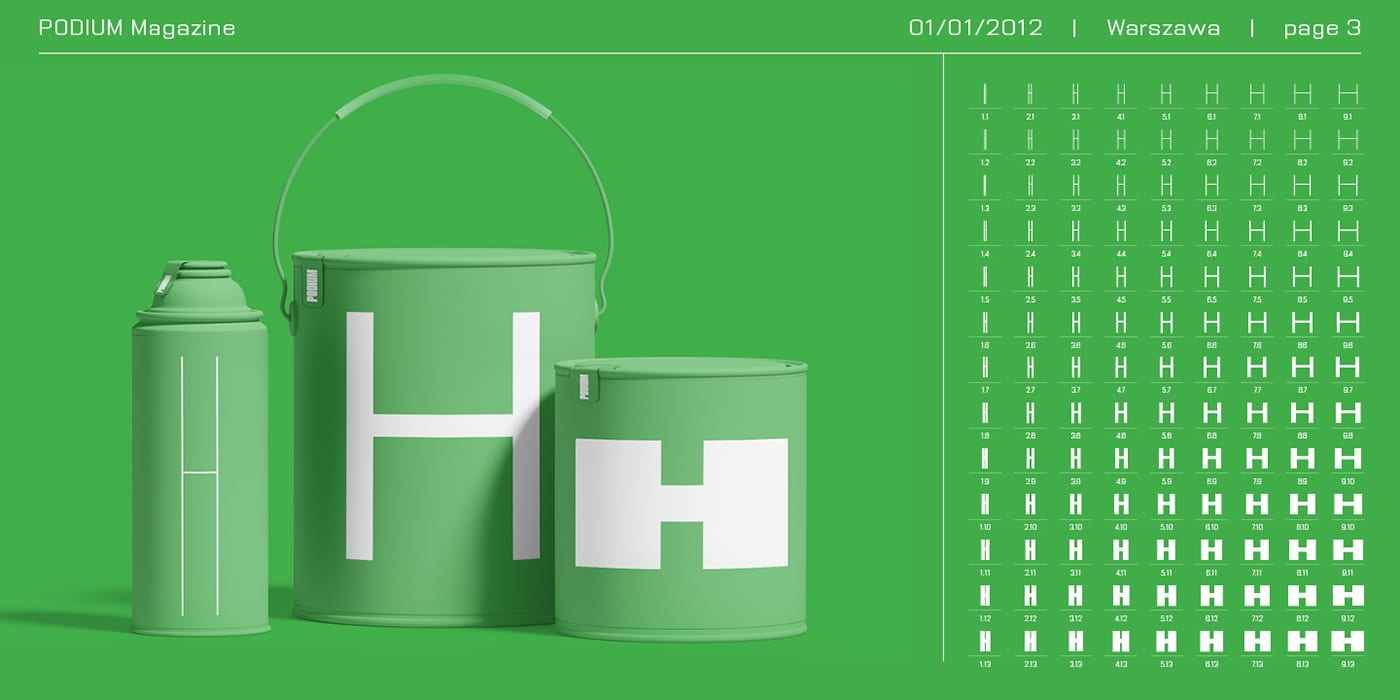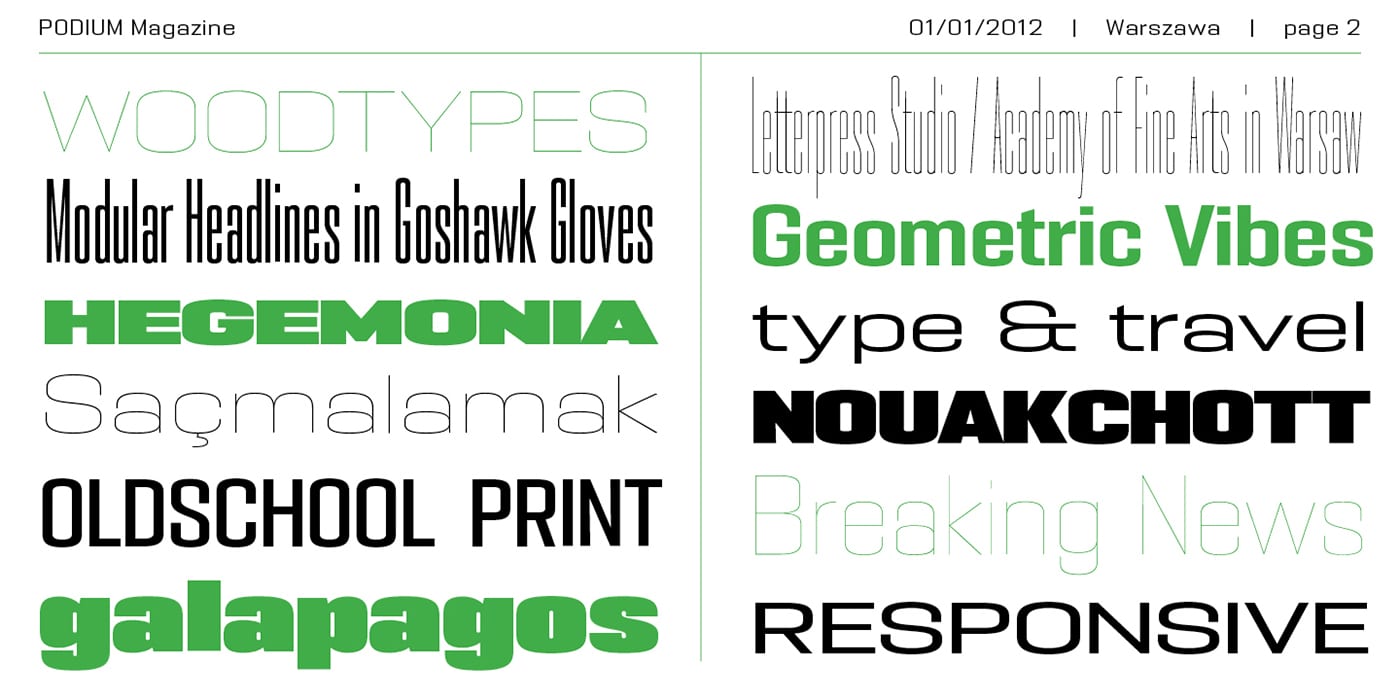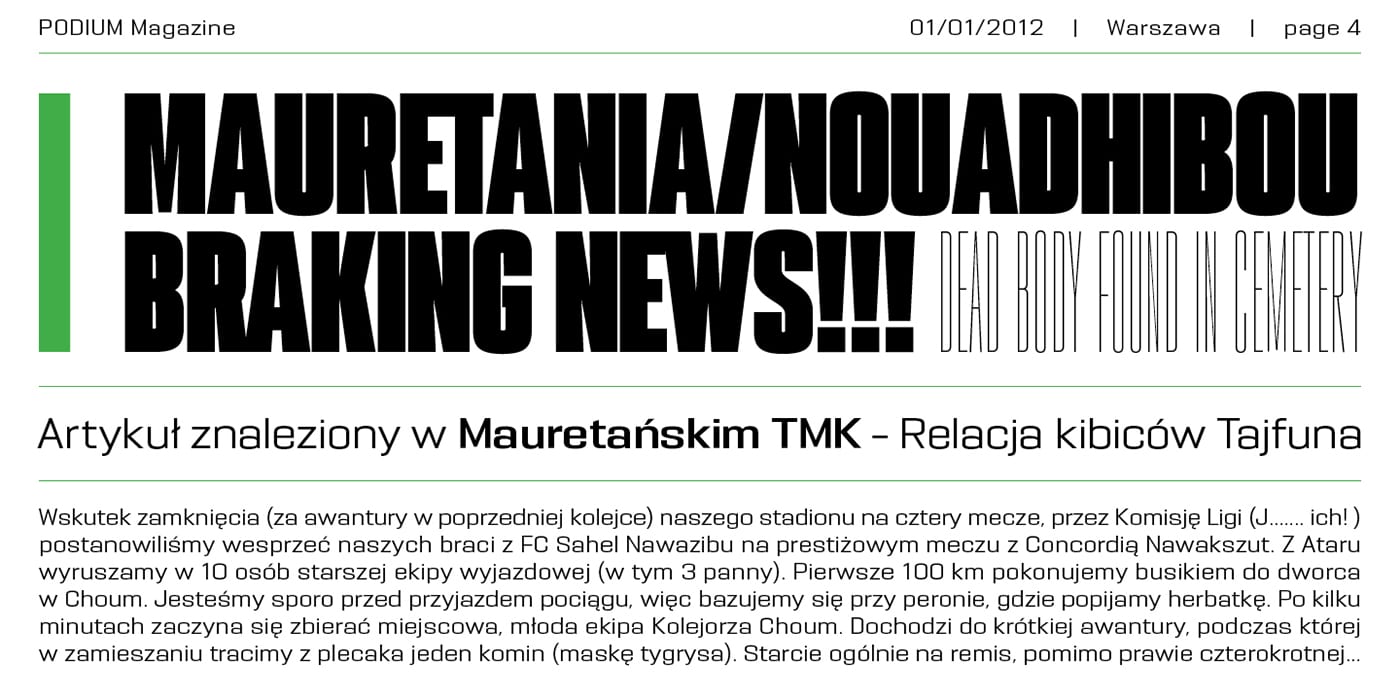
Podium Sharp Font
Podium Sharp Font - ← back to family page. Use the controls below to customize your text string and its. Web thanks to borutta group. Podium sharp sans serif font is the demo version, free for personal use only. Web the quick brown fox jumps over the lazy dog. Podium sharp is extended version of dudu typeface designed in 2012. Web podium sharp complete family. Web podium sharp font | webfont & desktop | myfonts. Podium sharp is extended version of dudu typeface designed in. Explore podium sharp variable designed by mateusz machalski at adobe fonts.
Podium sharp sans serif font is the demo version, free for personal use only. Web thanks to borutta group. Web the quick brown fox jumps over the lazy dog. ← back to family page. Web podium sharp complete family. Podium sharp is extended version of dudu typeface designed in 2012. Web podium sharp font | webfont & desktop | myfonts. Use the controls below to customize your text string and its. Explore podium sharp variable designed by mateusz machalski at adobe fonts. Podium sharp is extended version of dudu typeface designed in.
Podium sharp is extended version of dudu typeface designed in. Use the controls below to customize your text string and its. Explore podium sharp variable designed by mateusz machalski at adobe fonts. Podium sharp is extended version of dudu typeface designed in 2012. Web thanks to borutta group. Podium sharp sans serif font is the demo version, free for personal use only. ← back to family page. Web podium sharp font | webfont & desktop | myfonts. Web podium sharp complete family. Web the quick brown fox jumps over the lazy dog.
PODIUM Sharp Font
Podium sharp is extended version of dudu typeface designed in. Explore podium sharp variable designed by mateusz machalski at adobe fonts. ← back to family page. Web podium sharp complete family. Web thanks to borutta group.
Podium sharp is extended version of dudu typeface designed in. Web thanks to borutta group. Podium sharp is extended version of dudu typeface designed in 2012. Web podium sharp font | webfont & desktop | myfonts. Podium sharp sans serif font is the demo version, free for personal use only.
PODIUM Sharp Font
Web podium sharp complete family. Explore podium sharp variable designed by mateusz machalski at adobe fonts. Web the quick brown fox jumps over the lazy dog. Podium sharp is extended version of dudu typeface designed in 2012. Podium sharp is extended version of dudu typeface designed in.
← back to family page. Web podium sharp complete family. Podium sharp is extended version of dudu typeface designed in 2012. Web the quick brown fox jumps over the lazy dog. Explore podium sharp variable designed by mateusz machalski at adobe fonts.
Podium sharp is extended version of dudu typeface designed in. Web the quick brown fox jumps over the lazy dog. Web podium sharp font | webfont & desktop | myfonts. Web thanks to borutta group. Podium sharp is extended version of dudu typeface designed in 2012.
Web the quick brown fox jumps over the lazy dog. Podium sharp is extended version of dudu typeface designed in 2012. Use the controls below to customize your text string and its. Podium sharp sans serif font is the demo version, free for personal use only. Web podium sharp complete family.
PODIUM Sharp Font
Web thanks to borutta group. Web the quick brown fox jumps over the lazy dog. Use the controls below to customize your text string and its. Web podium sharp complete family. Podium sharp sans serif font is the demo version, free for personal use only.
PODIUM Sharp Font Family UpFonts
Web podium sharp complete family. Web the quick brown fox jumps over the lazy dog. Explore podium sharp variable designed by mateusz machalski at adobe fonts. Web podium sharp font | webfont & desktop | myfonts. ← back to family page.
PODIUM Sharp Font Family UpFonts
Podium sharp sans serif font is the demo version, free for personal use only. Use the controls below to customize your text string and its. Web podium sharp complete family. Web thanks to borutta group. ← back to family page.
Use The Controls Below To Customize Your Text String And Its.
Explore podium sharp variable designed by mateusz machalski at adobe fonts. ← back to family page. Web the quick brown fox jumps over the lazy dog. Web podium sharp font | webfont & desktop | myfonts.
Web thanks to borutta group. Web podium sharp complete family. Podium sharp is extended version of dudu typeface designed in. Podium sharp is extended version of dudu typeface designed in 2012.